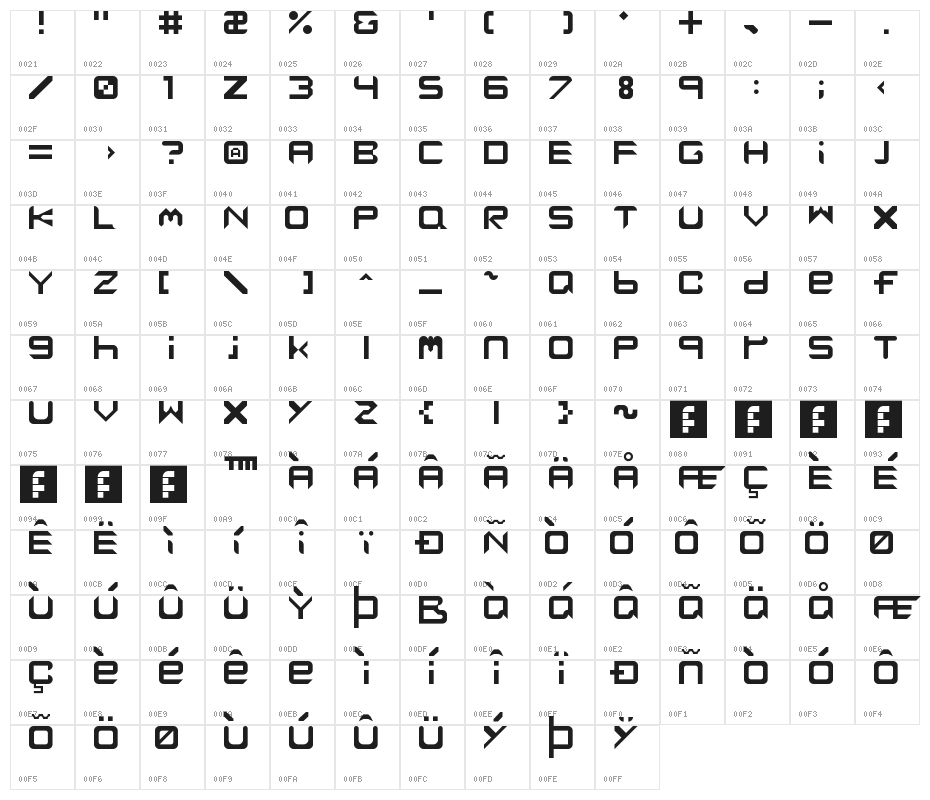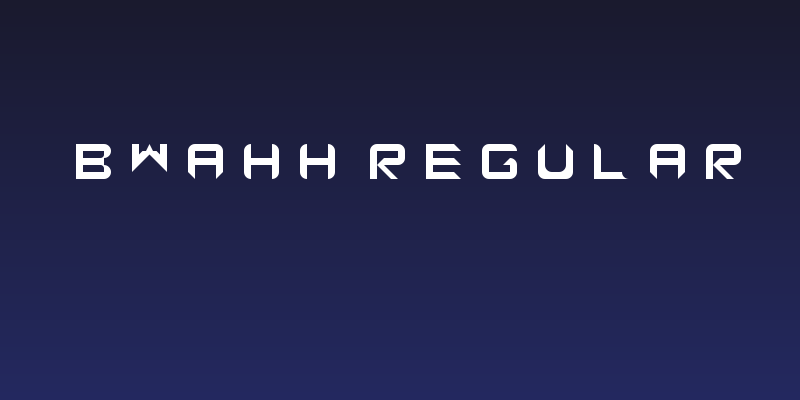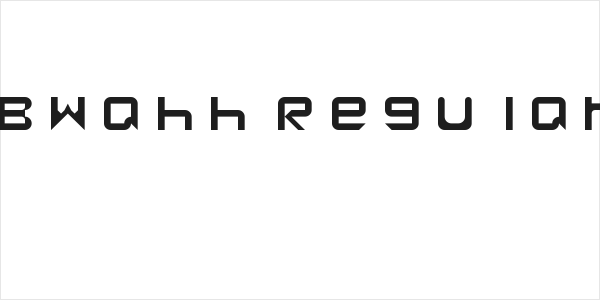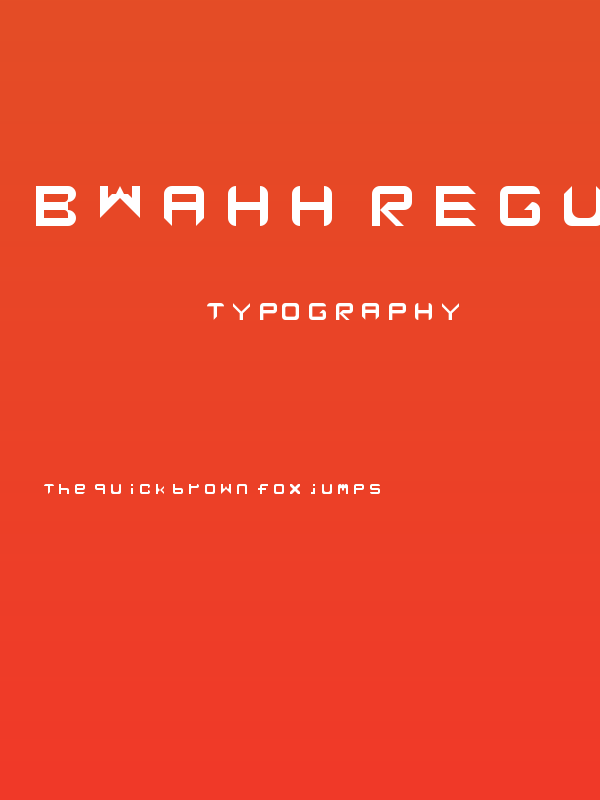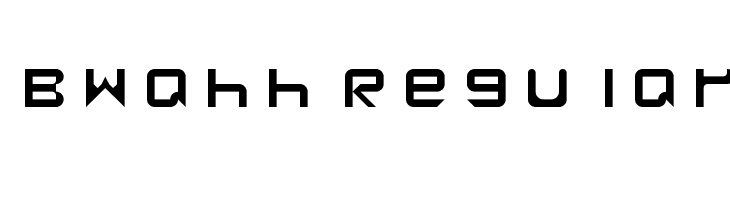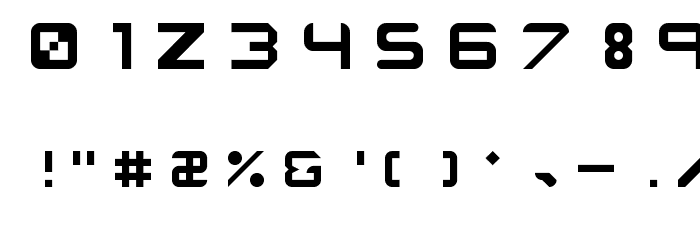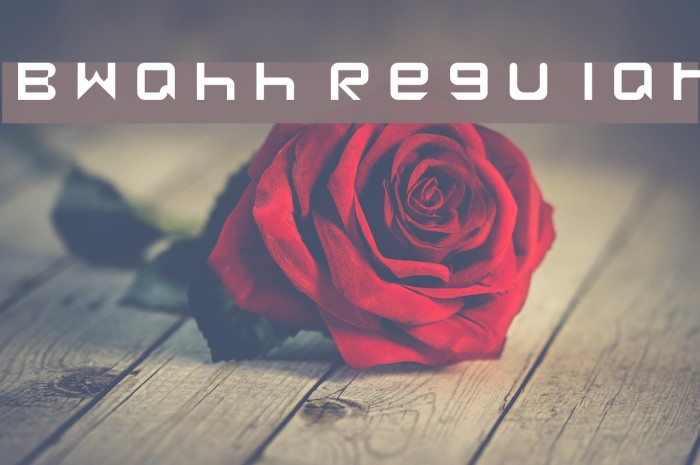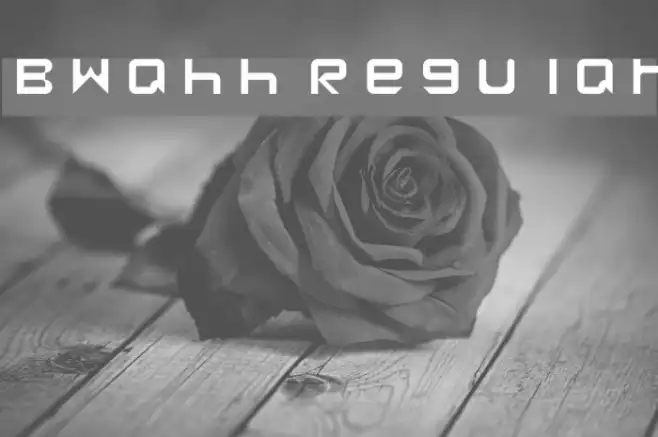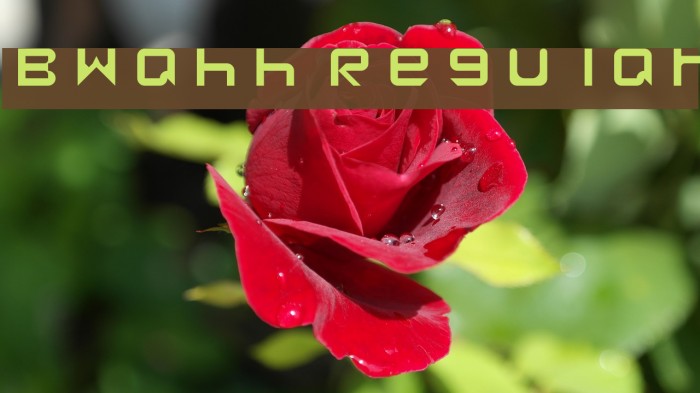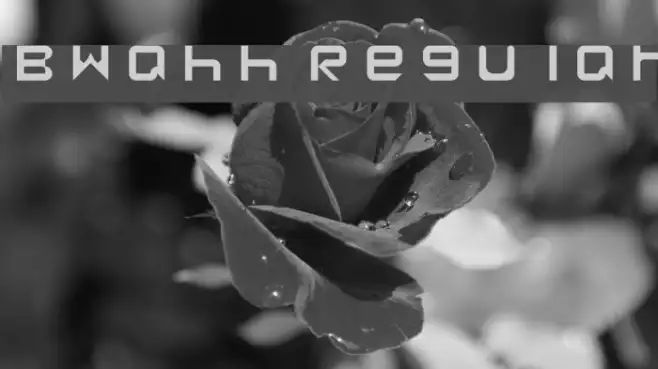
Bwahh Regular Font
Bwahh Regular Description
This font exhibits a futuristic and geometric style, characterized by its angular and blocky letterforms. The uppercase and lowercase letters maintain a consistent structure, with sharp edges and a uniform thickness throughout. The numerals and special characters follow the same design principles, ensuring a cohesive look across all glyphs. The font's design is bold and impactful, making it suitable for attention-grabbing applications. Its unique appearance is both modern and slightly retro, reminiscent of digital or sci-fi aesthetics.